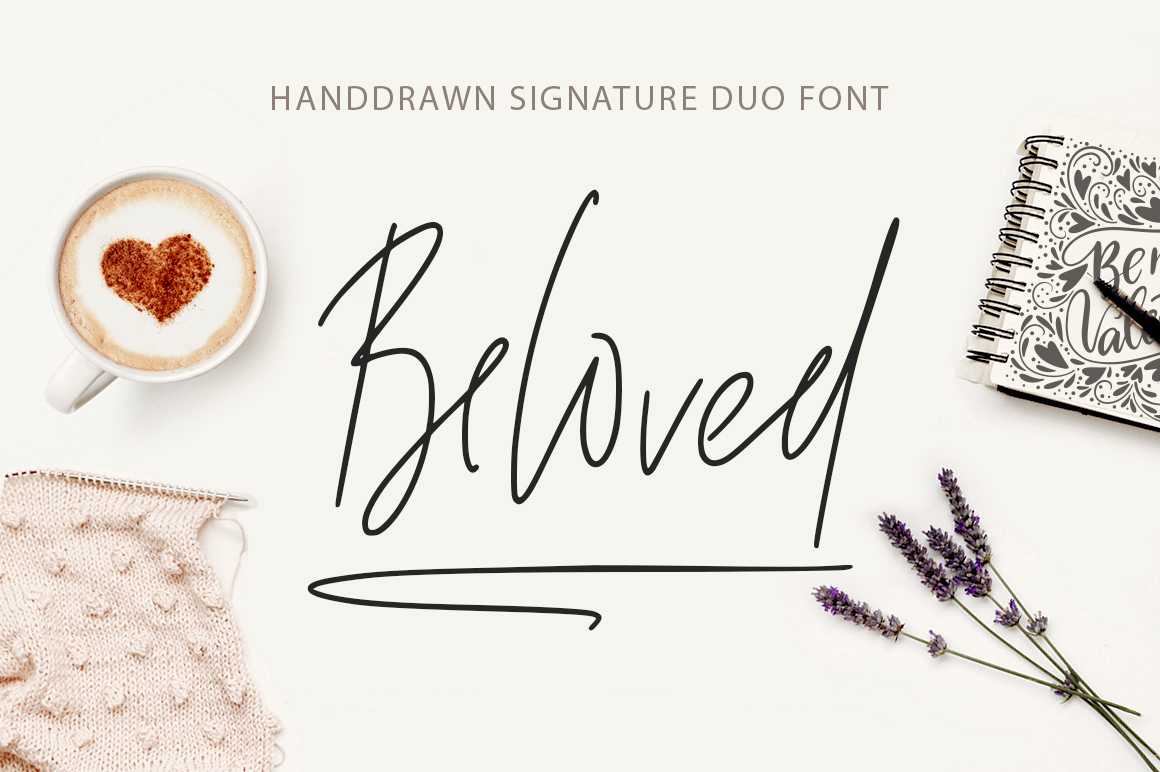
The Quest for the Perfect Font: How Beloved Stole My Heart
I still remember the design project that led me to Beloved, a beautiful script signature font. I was working on a branding project for a boutique client, and I was determined to find the perfect font to capture their playful yet elegant vibe. Hours turned into days, and days into weeks, as I scrolled through font after font, but none seemed quite right. That was until I stumbled upon Beloved, and it was love at first sight! ✨
An Honest Review of Beloved Font
So, what makes Beloved so special? Let’s dive into the good stuff and a few quirks I’ve discovered.
- ✨ Unique bouncy character: Beloved has an infectious energy that’s hard to ignore. Its bouncy strokes and irregularities give it a delightfully human feel.
- ✅ Naturally hand-lettered style: This font doesn’t try to mimic perfection; instead, it celebrates the beauty of imperfection. It’s like having a friend’s handwritten note, but in digital form!
- 🔥 Versatility: Whether you’re working on a logo, invitation, or social media graphics, Beloved adapts effortlessly to different contexts and sizes.
While Beloved is a stunning font, there are a few things to keep in mind:
- ⚠️ Legibility at small sizes: Like many script fonts, Beloved can get a bit tricky to read at very small sizes (below 10pt). Use it for headlines or larger text for maximum impact.
- 🤔 Glyph coverage: While Beloved has a generous set of glyphs, it might not cover every special character you need. Double-check the character set before committing to a project.
The Story Behind Beloved Font
Beloved was crafted with love by a designer who wanted to capture the essence of hand-lettered joy. The story goes that the designer was inspired by vintage street art and handwritten letters from loved ones. They aimed to bottle that feeling of warmth and personality into a digital font that’s both beautiful and relatable.
Q: Is Beloved suitable for body text?
A: While Beloved is stunning, it’s best used for headlines or short paragraphs due to its script nature and bouncy character. For longer body text, consider a more traditional font.